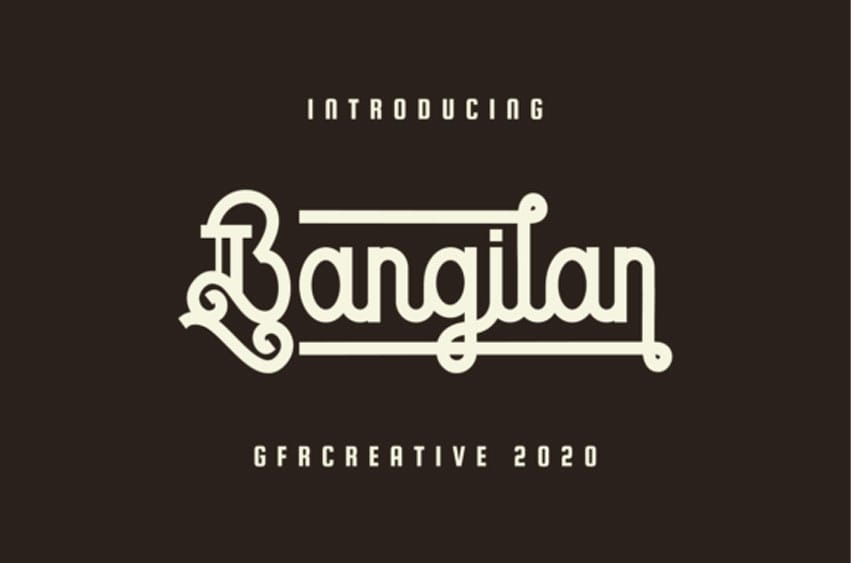
Bangilan Font is a trendy and vintage styled display font.
Carefully created to become a top favorite, this font is ideal for each of your creations.